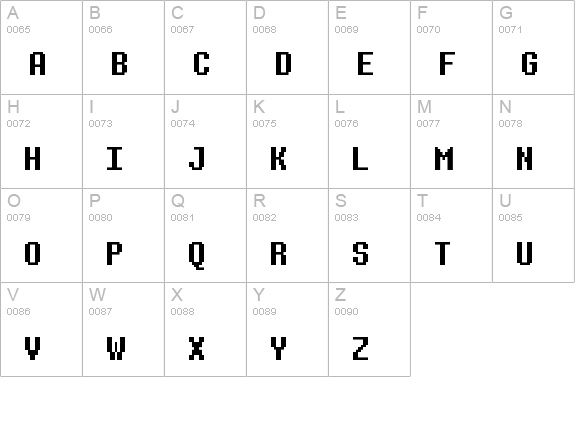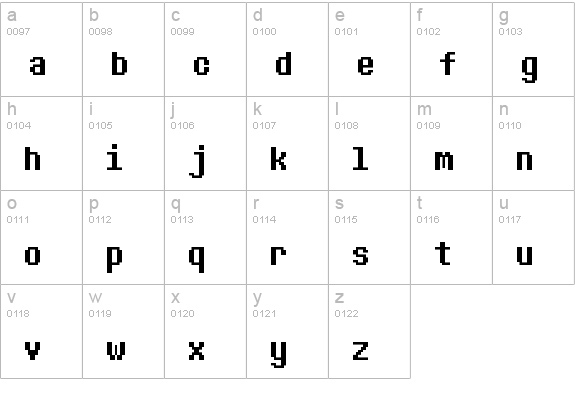
The 8bitoperator JVE font is a charming and nostalgic typeface that brings back the retro vibes of classic video games and pixel art. With its pixelated design and jagged edges, this font perfectly captures the essence of the 8-bit era. The 8bitoperator JVE font is versatile and can be used for a variety of projects, from gaming websites to posters and social media graphics.